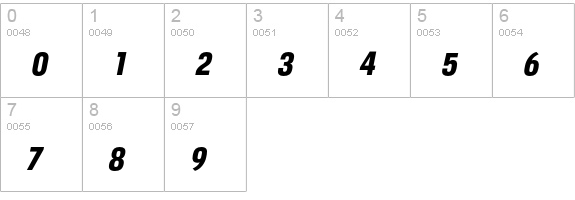
CorpuGotAltIta Font Details
CorpuGotAltIta font is a versatile and stylish typeface that is perfect for a wide range of design projects. With its elegant and modern look, this font is sure to make a statement in any design. Whether you're working on a branding project, a website design, or a print advertisement, CorpuGotAltIta font will add a touch of sophistication to your work. One of the best things about CorpuGotAltIta font is that it is available for free download at FontsMarket.com. This means that you can easily access this high-quality font without having to spend a dime. So why wait? Download CorpuGotAltIta font today and take your designs to the next level!